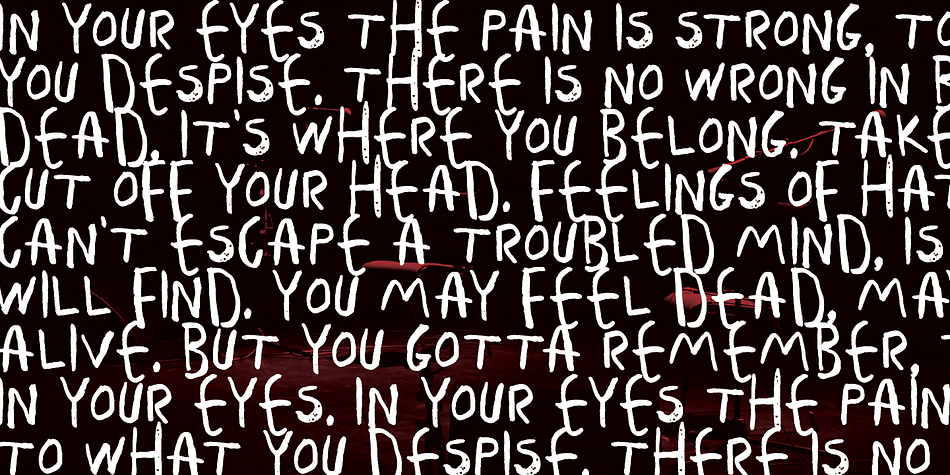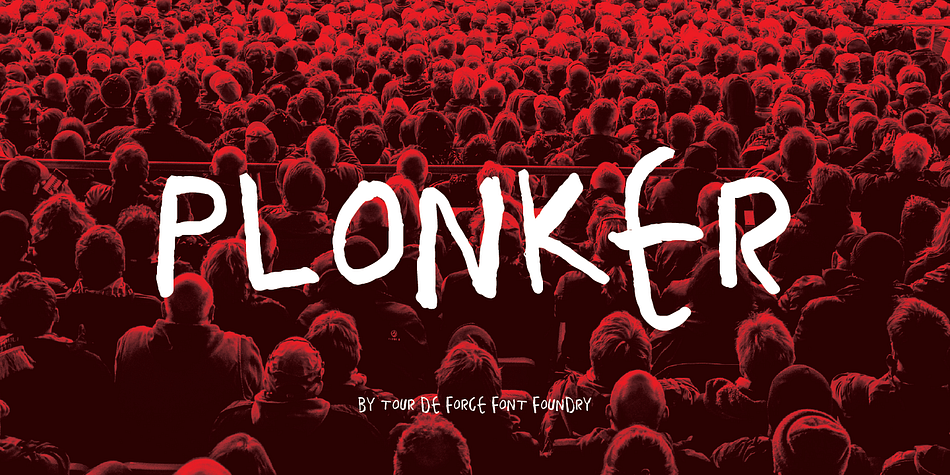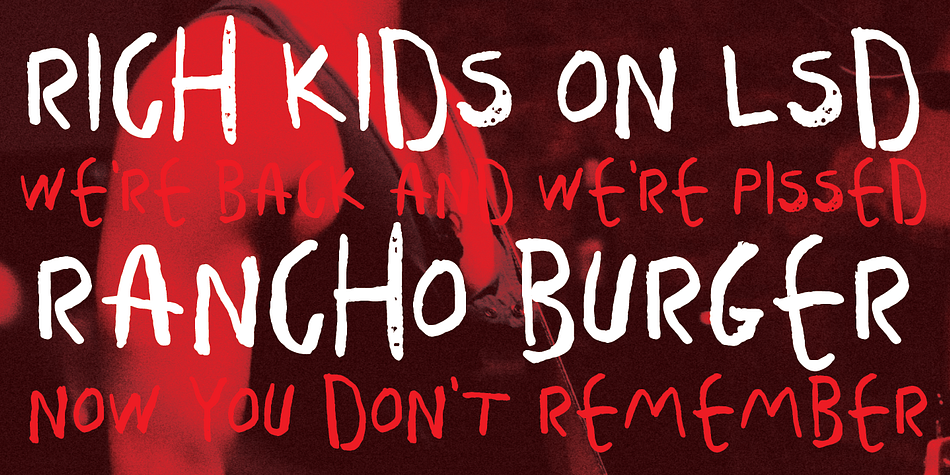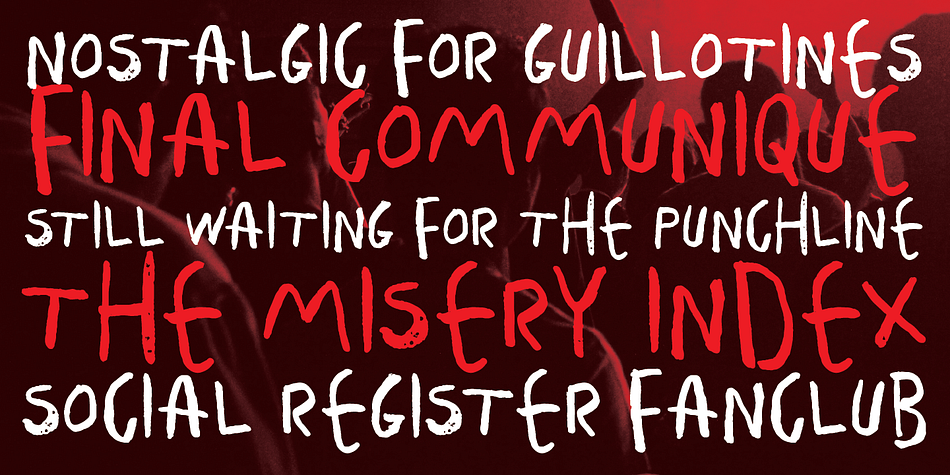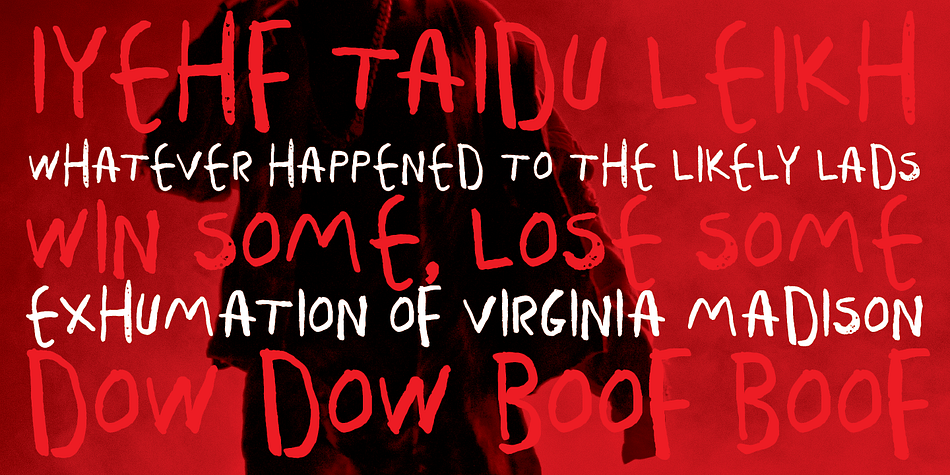
Designed by Dusan Jelesijevic, Plonker is a hand display and kids font published by Tour de Force Font Foundry.
Introducing all caps handwritten typeface named Plonker after Derek Trotter’s famous “You plonker!” statement to Rodney at “Only Fools and Horses”.
Foundry | Tour de Force Font Foundry |
Designer | Dusan Jelesijevic |